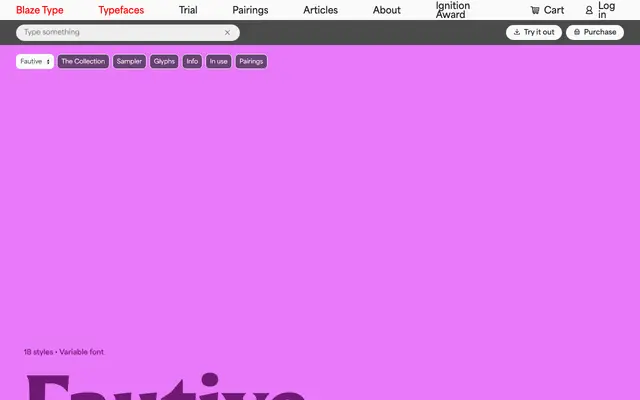
Fautive
Blaze Type · Fred Wiltshire · 2022
An expressive display serif by Fred Wiltshire, drawing loosely on Louis Perrin's work and extending it into 18 flamboyant styles with Cyrillic, Greek and extended Latin support.
Built around exaggerated details and a playful character, the family runs from Thin to Black with matching italics, where lighter weights amplify decorative movement and heavier ones round off the quirks. Each font ships with an extensive set of ligatures, alternates, modular ornaments, illustrations and, per the foundry, a snake. The regular style holds up for running text, but the design is at its best in headline and display settings on posters, books and editorial layouts.
A highly expressive serif with exaggerated personality, based loosely on the work of Louis Perrin, optimised for display and headline use with calligraphic italics and ornamental features.